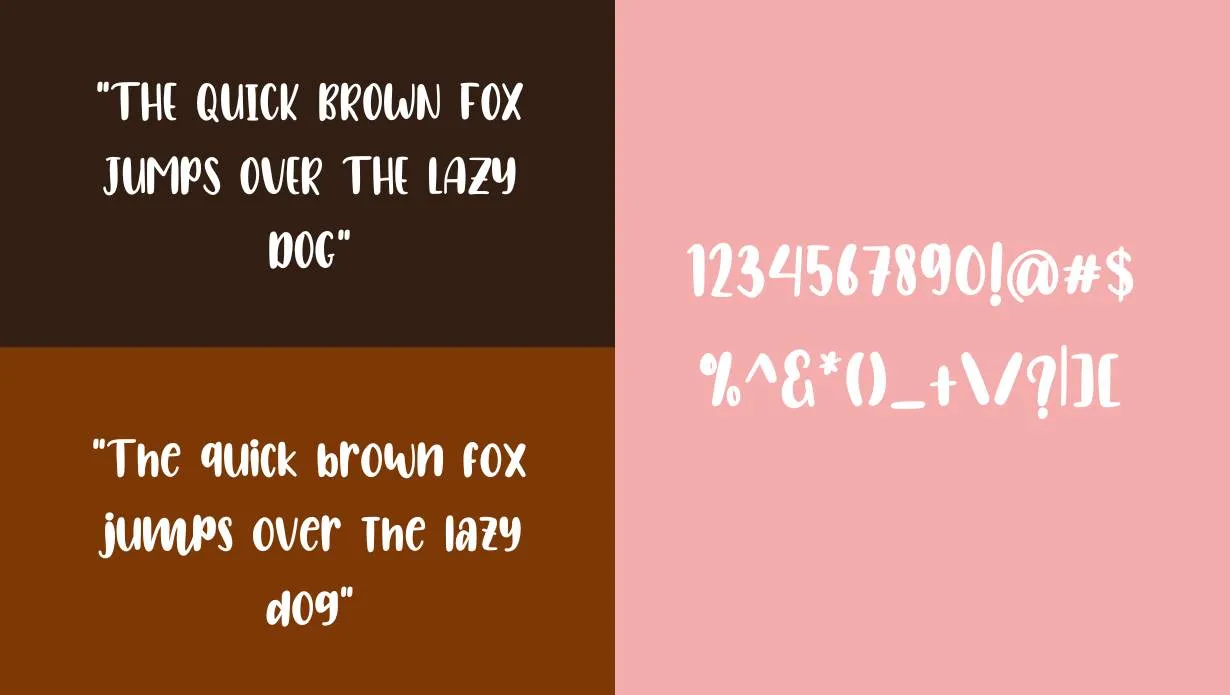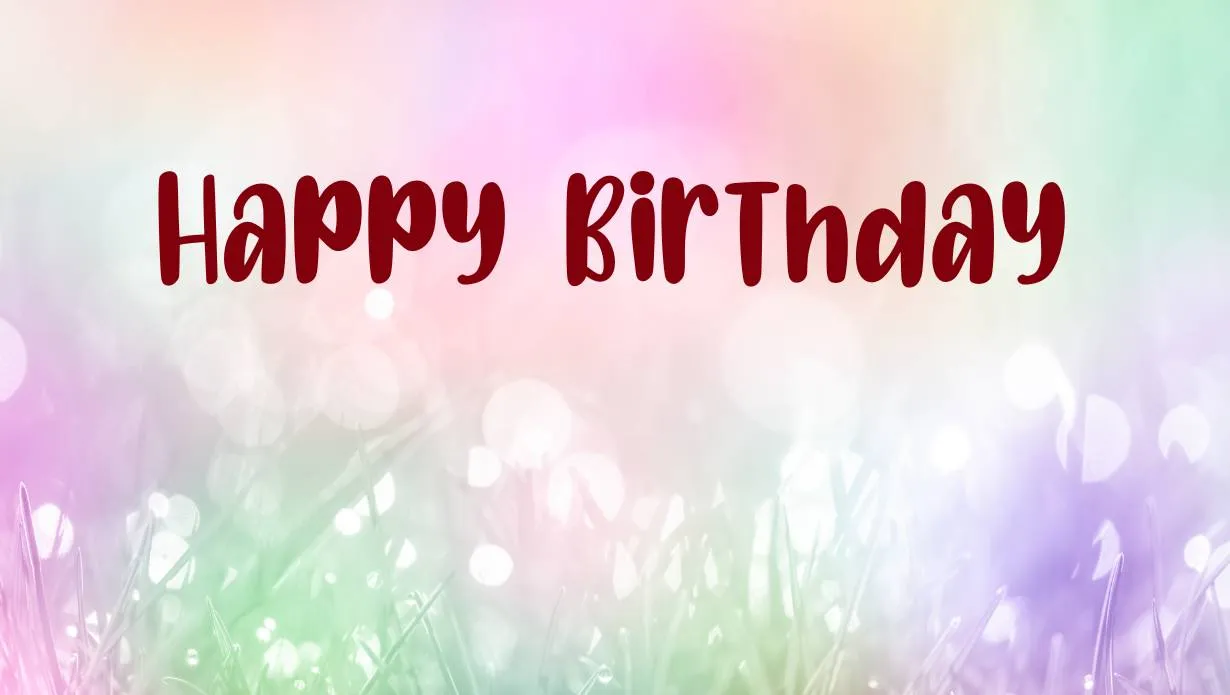
Carol Twombly created the Baby Caroline Font in 1990, which falls under the brush font category.
This typeface has TTF and OTF features. Its small case letters have an extensive X-height and the uppercase are a little narrow which makes it perfect for text setting and body text.